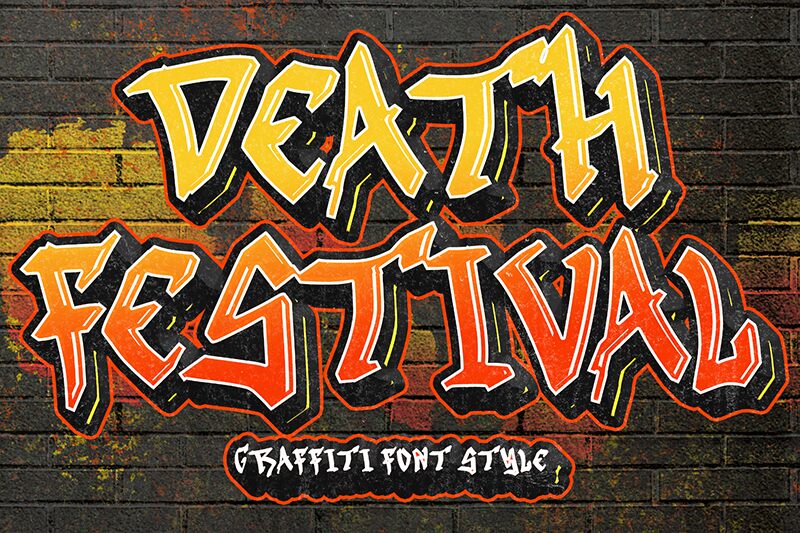
Death Festival font by Yoga Letter is an edgy, gothic-inspired graffiti typeface with a bold weight. It features thick strokes and creative irregular elements for an aggressive look with a modernist touch. The free techno display font’s appeal is theatrical, impactful, and can be used across different creative projects.
Use it in branding projects such as game logos, titles for horror/thrillers, books covers of crime novels, posters or flyers for music festivals/concerts/prom nights. This font usually looks perfect in apparel designs including t-shirts and hoodies where the edgy urban feel can truly shine. Let your creativity outshine using this generator!